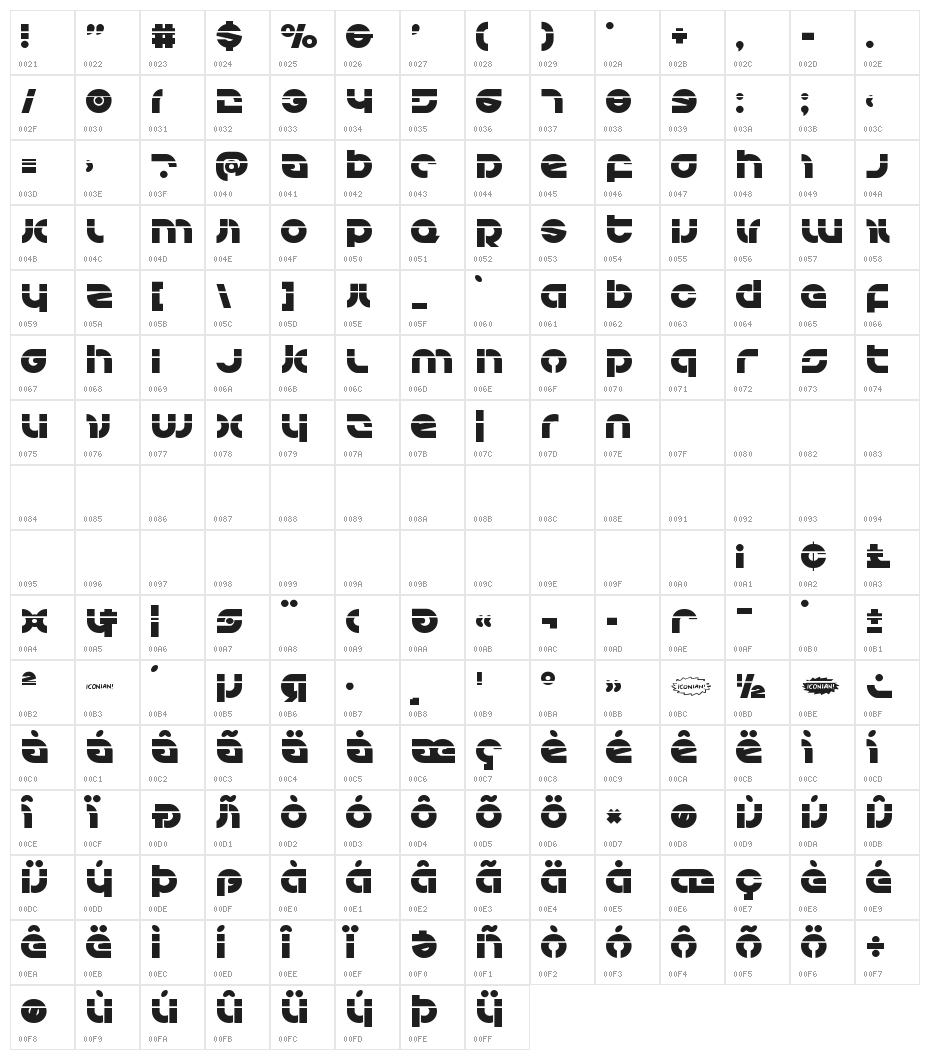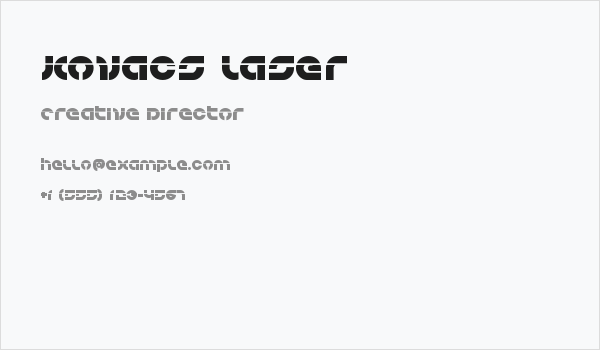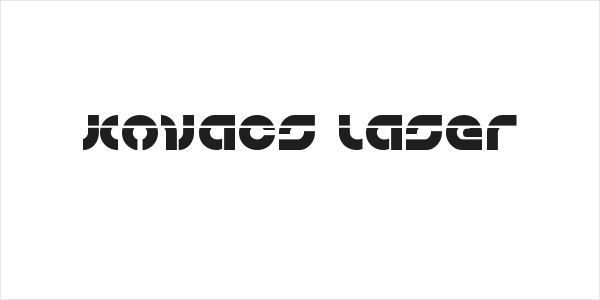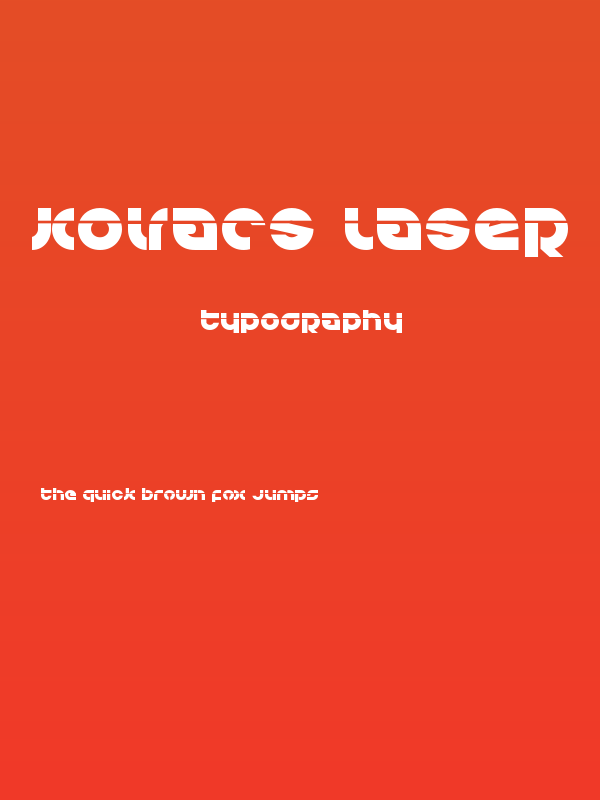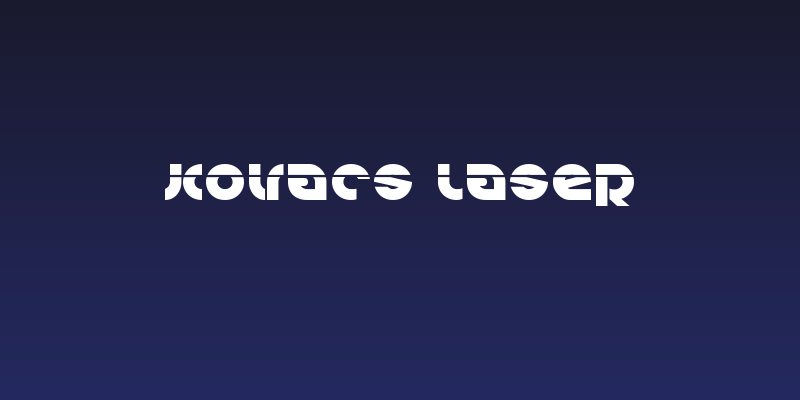
Kovacs Laser Font
Kovacs Laser Description
This font features a futuristic and geometric design, characterized by its bold and striking appearance. The letters are constructed with a series of straight lines and curves, creating a sense of movement and dynamism. The use of negative space within the characters adds a unique visual interest, making it stand out in any design. The uppercase and lowercase letters maintain a consistent style, with a uniform height and width that contributes to its cohesive look. The numbers and special characters follow the same design principles, ensuring a harmonious overall appearance.
| Proposed Projects | Ideal for sci-fi themed projects, technology branding, video game titles, and modern posters. |